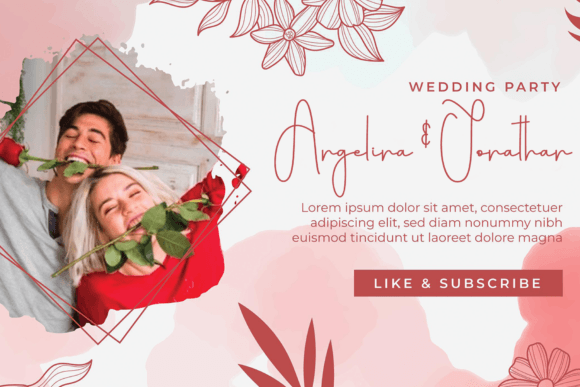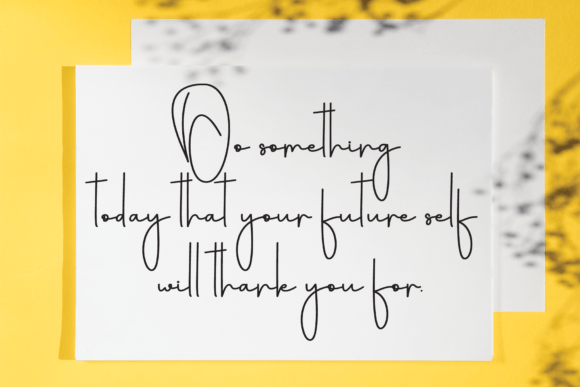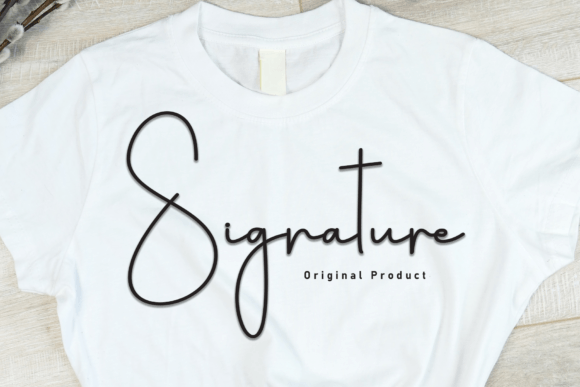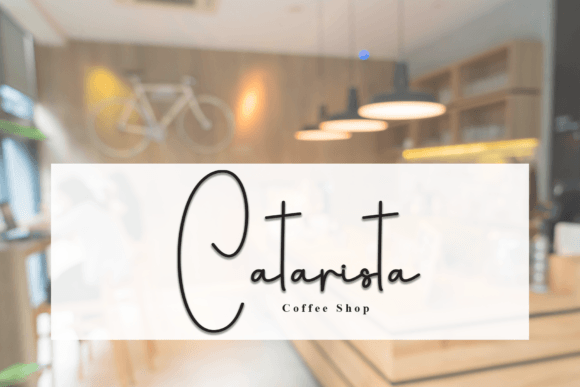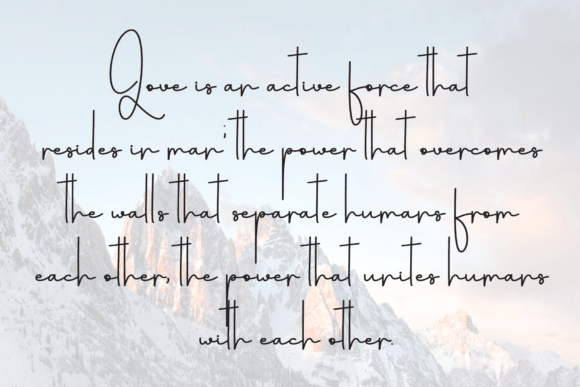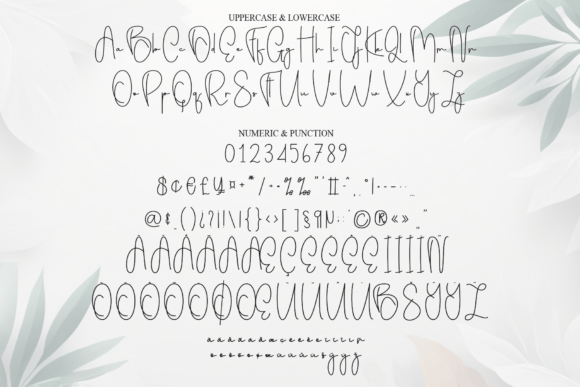
Introducing Futuristic Font: The Sweet and Whimsical Display Font
Have you ever been working on a design project, and suddenly, you’re stuck on finding the perfect font? I recall a recent experience where I was designing a wedding invitation for a client, and I just couldn’t find a font that captured the sweet and playful vibe they wanted. That’s when I stumbled upon Futuristic Font, and it instantly became the perfect fit. In this article, I’ll share my journey with this enchanting handwritten display font and how it can add a delightful touch to your designs.
The Futuristic Font Difference
Futuristic Font is a beautiful, handwritten display font that exudes a sweet, friendly appeal. Its adorable and whimsical characteristics make it perfectly suited for wedding invitations, mementos, or any design seeking an element of playful lightheartedness. With this font, you can inspire joy with each stroke!
What I Love About Futuristic Font
- ✨ Sweet and Friendly Appeal: Futuristic Font has a unique, charming quality that instantly captures the viewer’s attention.
- ✅ Whimsical Characteristics: The font’s playful and dynamic nature makes it perfect for designs that require a touch of lightheartedness.
- 💕 Perfect for Wedding Invitations: The font’s sweet and elegant feel makes it an excellent choice for wedding invitations, mementos, and other special occasion designs.
Honest Review: The Not-So-Perfect Aspects
While Futuristic Font is an amazing addition to any design project, there are a few quirks to consider:
- 🤔 Limited Use Cases: Due to its playful nature, Futuristic Font might not be the best fit for more formal or corporate designs.
- ⚠️ Requires Attention to Spacing: To get the most out of this font, you might need to adjust the spacing between letters to ensure optimal readability.
The Designer Inspiration Behind Futuristic Font
Futuristic Font was designed with the intention of creating a font that captures the sweetness and playfulness of childhood memories. The designer aimed to create a font that would bring joy and whimsy to any design project. Inspired by classic children’s books and playful street art, Futuristic Font is the perfect blend of friendly and elegant.
Q: What type of designs is Futuristic Font best suited for?
A: Futuristic Font is perfect for wedding invitations, mementos, and any design that requires a touch of playful lightheartedness.
Q: Does Futuristic Font support OpenType features?
A: Yes, Futuristic Font supports OpenType features, allowing you to access a range of glyphs and stylistic alternates.